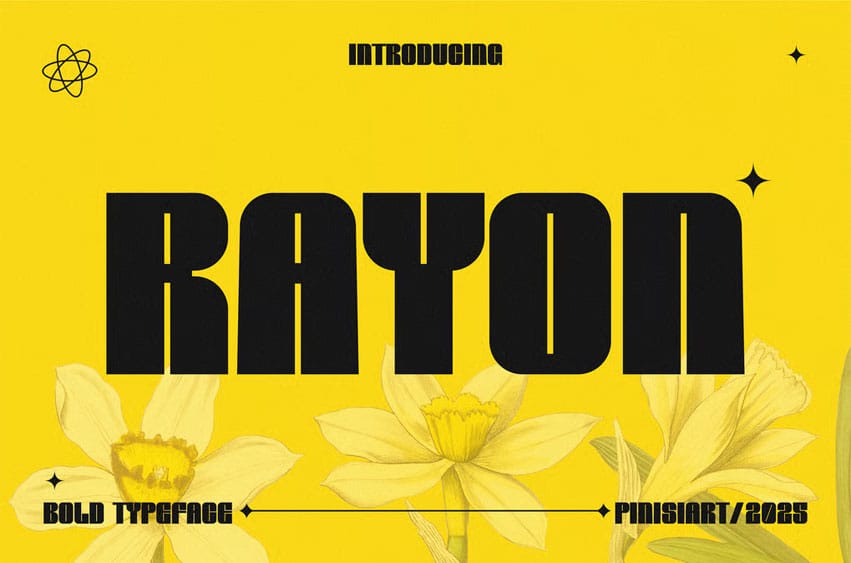
Rayon Font captures the spirit of vintage poster design through bold geometry and strong proportions. Its thick stems, squared edges, and high visual contrast bring a sense of industrial confidence while maintaining a smooth typographic rhythm. Designed to balance structure and flow, RAYON instantly stands out in editorial layouts, branding projects, and music-inspired visuals. Its aesthetic channels the nostalgia of mid-century advertising but with a refined modern twist that fits perfectly in today’s creative scene.
RAYON shines in branding, editorial covers, poster layouts, and music promotions—anywhere visual impact matters. Designers love its commanding letterforms that fill space with personality while maintaining excellent readability. Whether used for magazines, art exhibitions, or bold social media graphics, RAYON brings energy, structure, and creative flair to your message.
- Visual Personality
- Thick, confident letterforms with balanced proportions
- Retro influence fused with a clean geometric build
- Ideal for headlines, logotypes, and posters
- Design Flexibility
- Works across editorial, branding, and display contexts
- Maintains strong presence in both print and digital formats
- Perfect harmony between nostalgia and modernism